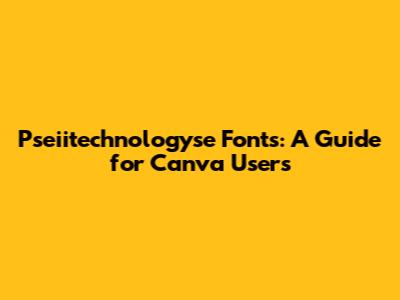
- Canva's Font Library: Start here! Canva has a surprising number of modern and techy fonts. Use keywords like "modern," "futuristic," "tech," or "geometric" in the font search bar. You might stumble upon some hidden gems. Don't just scroll through the popular fonts; dig a little deeper to discover unique options that haven’t been overused. Exploring Canva's library can sometimes lead to unexpected finds that perfectly match your design aesthetic.
- Pairing is Key: Don't go overboard with the techy fonts. Use them for headings or short bursts of text, and pair them with a more readable font for the body text. Think of it like this: the Pseiitechnologyse font is the star, and the other font is the supporting actor. A classic pairing might be a futuristic font for the title and a clean sans-serif like Open Sans or Lato for the body. Experiment with different combinations to find what works best for your design. Consider the contrast between the fonts – a bold, techy font paired with a light, airy sans-serif can create a striking visual effect.
- Color Matters: Choose colors that complement the futuristic vibe of the font. Think neon blues, electric greens, and metallic silvers. But don't go too crazy – keep the color palette cohesive and easy on the eyes. Using a color palette generator can help you find complementary colors that enhance the overall aesthetic of your design. Consider the psychology of colors – blue often conveys trust and reliability, while green can symbolize innovation and growth. Choose colors that align with the message you want to communicate.
- Spacing and Size: Pay attention to the spacing between letters and lines. A crowded design can look messy and unprofessional. Give your text some room to breathe. Adjust the letter spacing and line height to improve readability and create a more visually appealing layout. Experiment with different font sizes to create hierarchy and draw attention to key elements. Proper spacing and sizing can make a significant difference in the overall impact of your design.
- Consistency is King: Use the same font family throughout your design to maintain a consistent look and feel. This is especially important for branding purposes. Consistency helps to establish a strong visual identity and makes your designs instantly recognizable. Create a style guide that outlines the fonts, colors, and other design elements that you use consistently across all your projects. Maintaining consistency reinforces your brand message and builds trust with your audience.
- Tech Startup Logos: Use a bold, geometric font for your startup's logo to convey innovation and modernity.
- Social Media Graphics: Create eye-catching social media posts with futuristic fonts for headings and captions.
- Presentation Slides: Use techy fonts in your presentation slides to make them more engaging and visually appealing.
- Website Banners: Design website banners that grab attention with modern and cutting-edge typography.
- Font Looks Different: Sometimes, fonts can look slightly different in Canva than they do in other programs. This could be due to rendering differences or font compatibility issues. Try adjusting the font size or spacing to see if that helps.